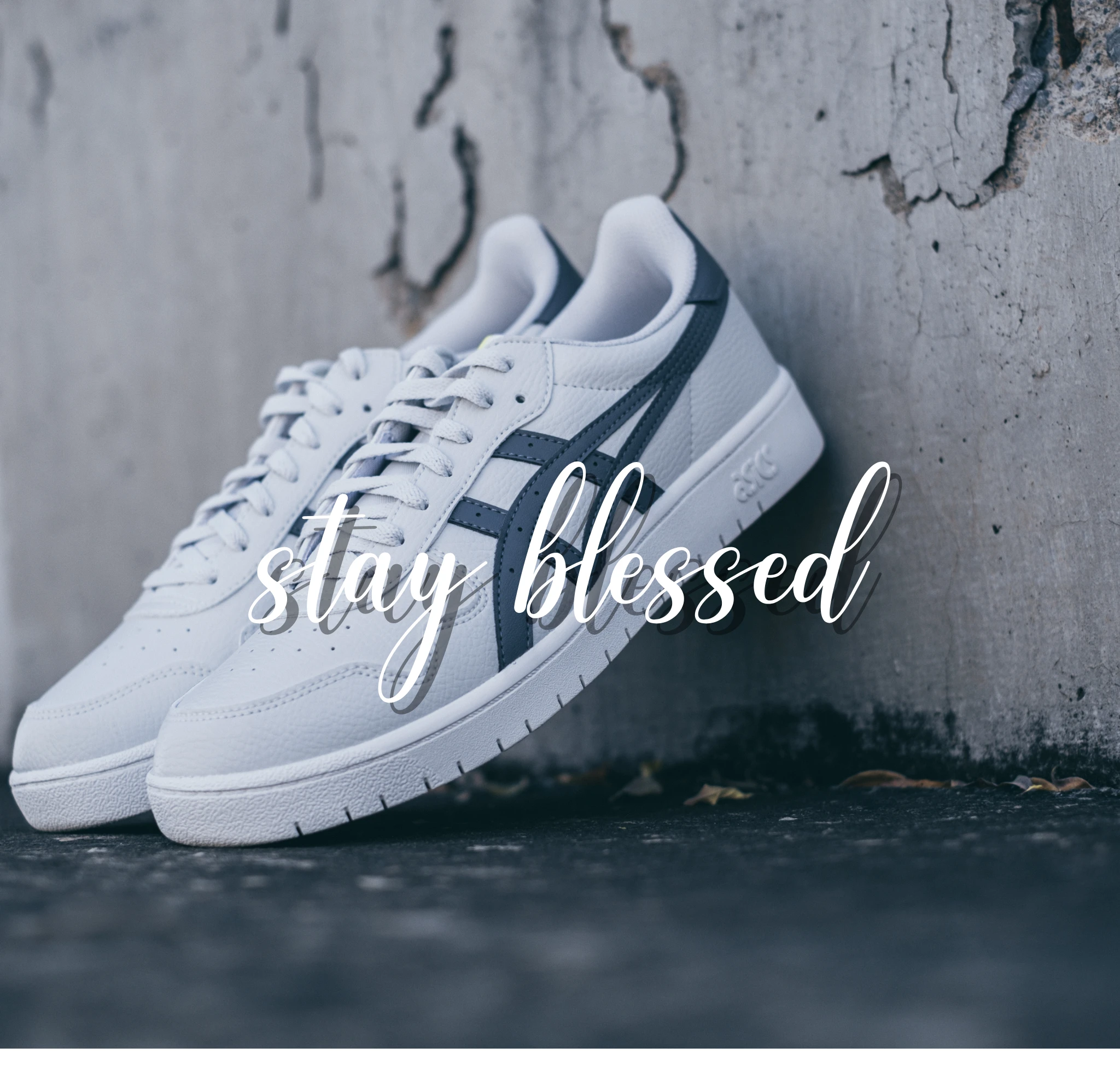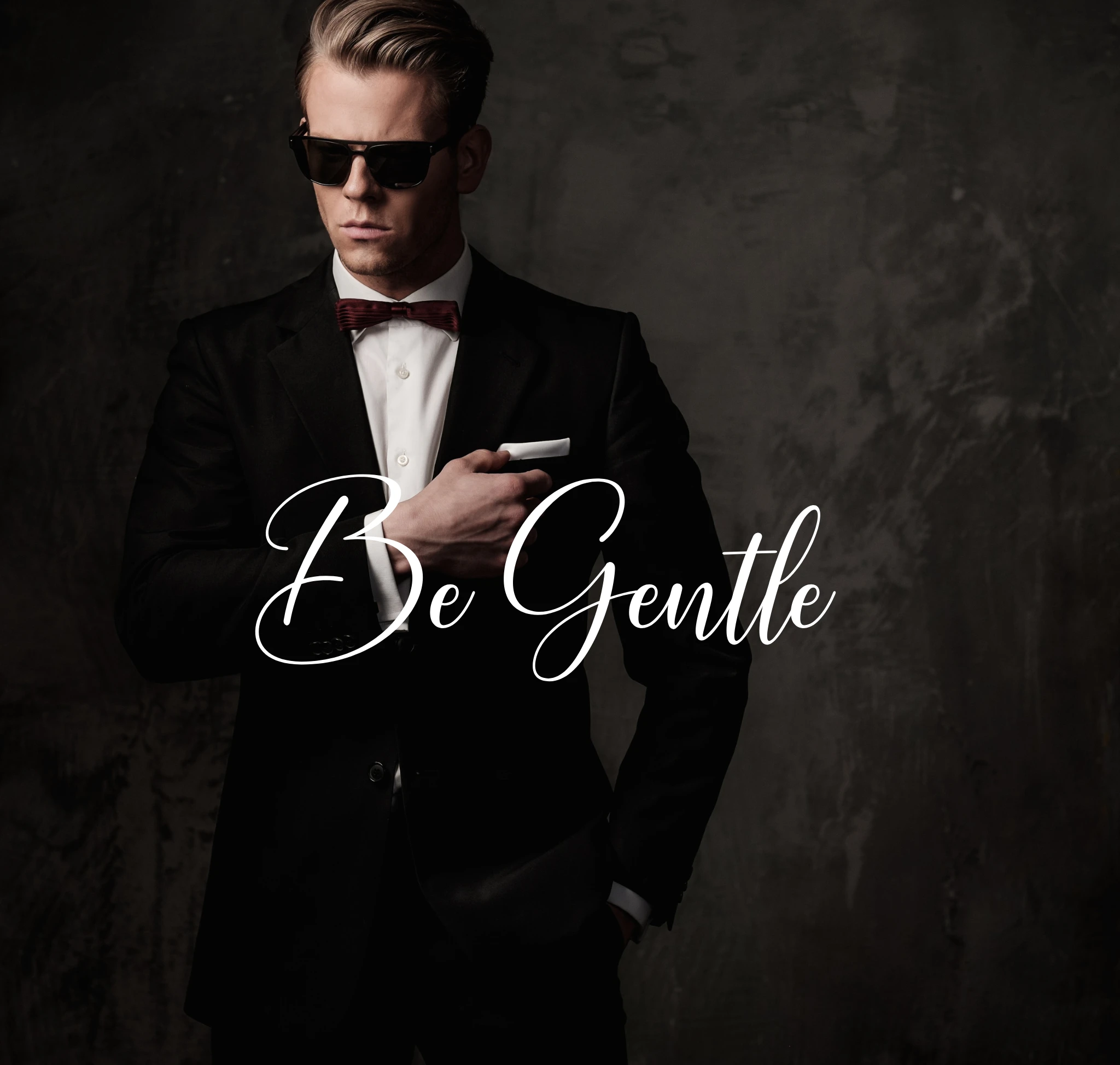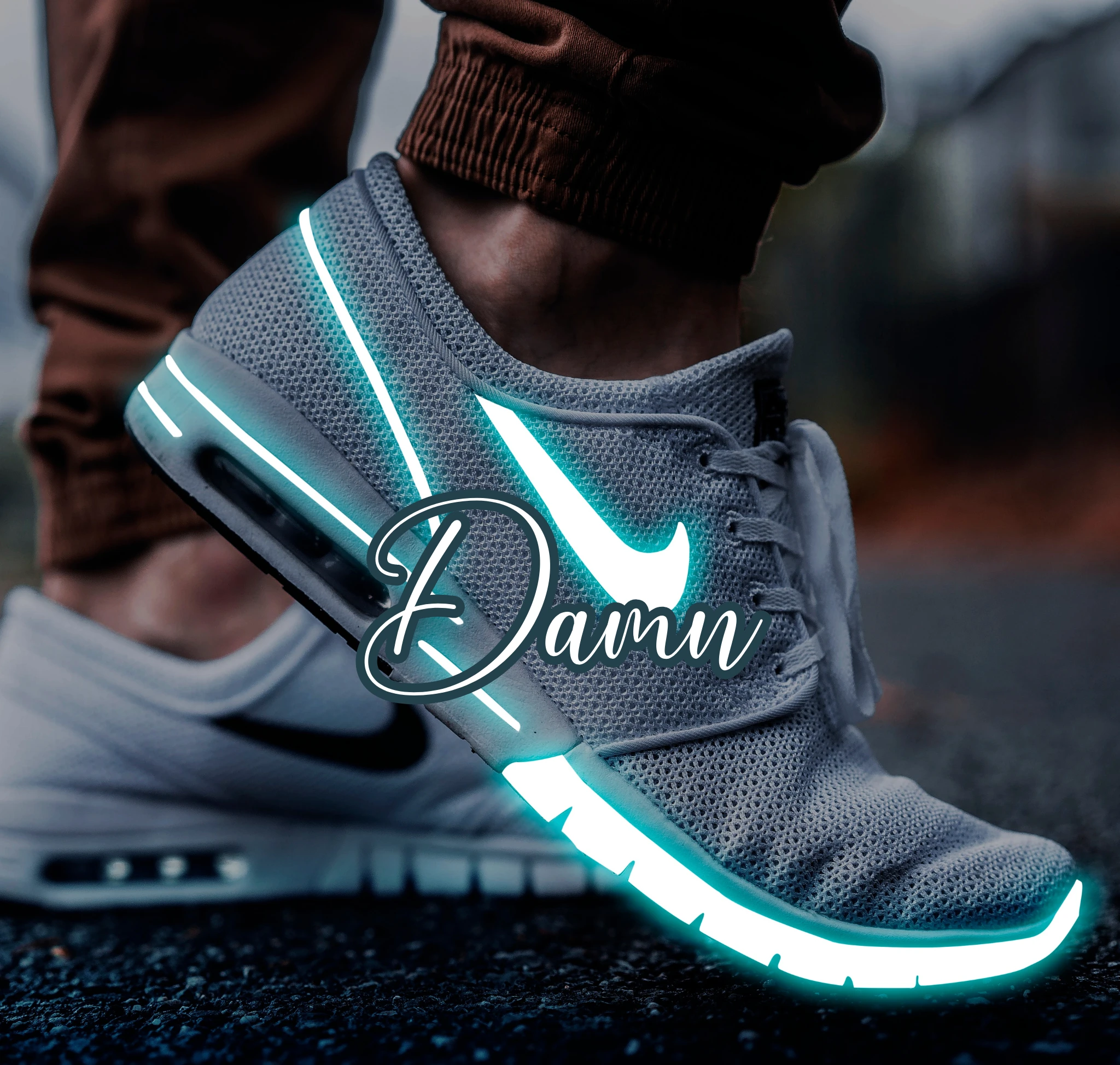
Give your designs a cosy, welcoming touch with Am Back Home Font ā a handwritten script inspired by homecoming, comfort and heartfelt moments. Its smooth curves and friendly strokes make it ideal for designers, bloggers and small businesses who want their text to feel warm and personal.
Use Am Back Home Font for greeting cards, wedding invitations, home dƩcor prints, event stationery, social media graphics, motivational quotes, packaging, blogs and branding materials. Its clear, versatile style works beautifully in both print and digital projects.